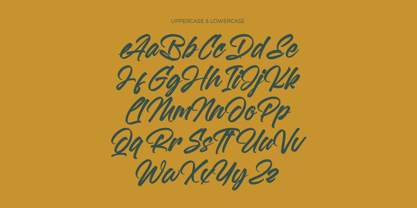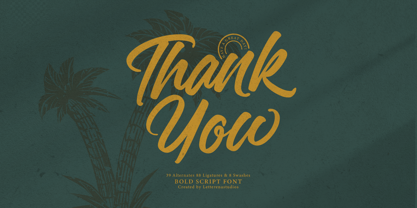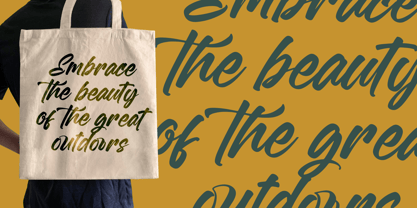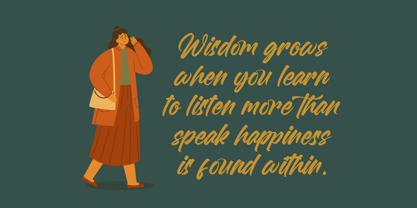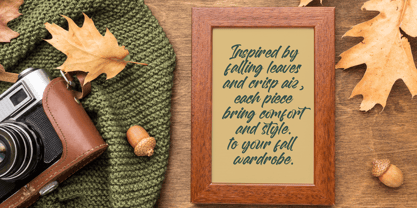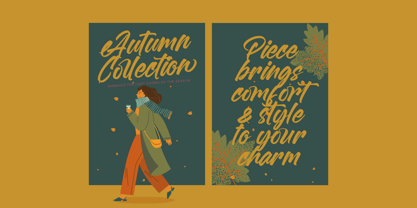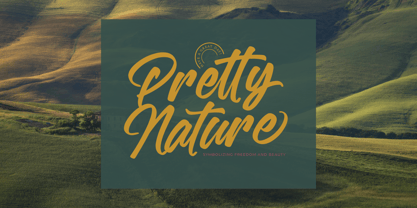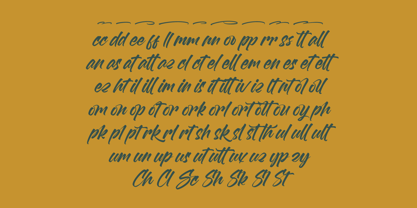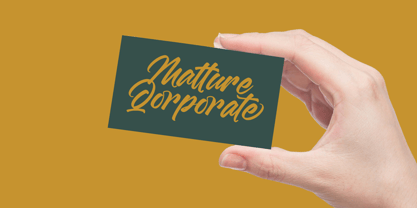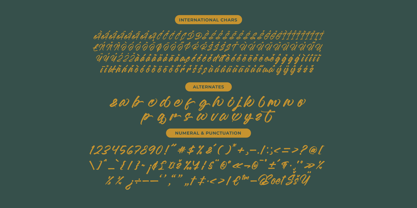
Malgent Husked
by Letterena Studios
The Malgent Husked Font Family was designed by Heru Utama Putra and published by Letterena Studios. Malgent Husked contains 2 styles and family package options. More about this family
Malgent Husked - Bold Script Font , from Letterena, is a Luxury Script font, suitable for any projects such as: logos, branding projects, homeware designs, product packaging, mugs, quotes, posters, shopping bags, t-shirts, book covers, name card, invitation cards, greeting cards, label, photography, watermark, special events, and all your other luxury and beautiful projects that need a Luxury Script taste.